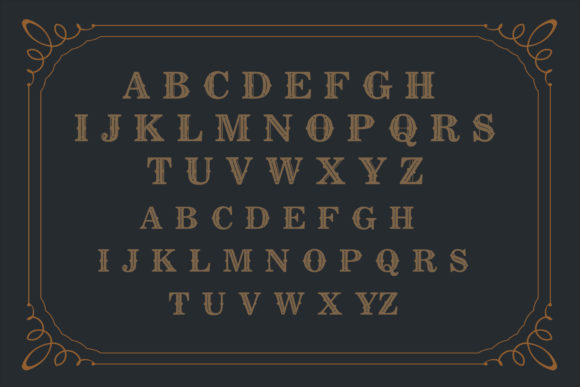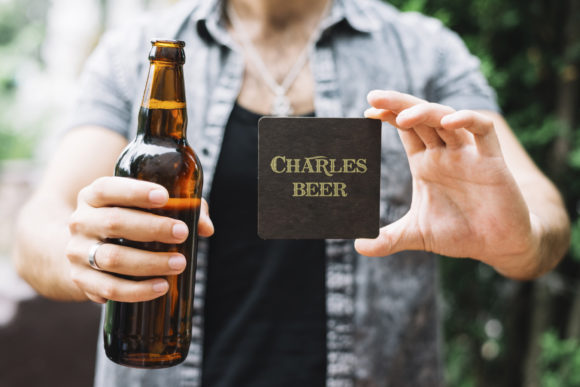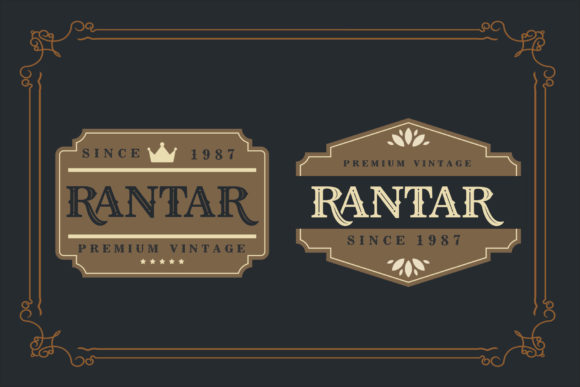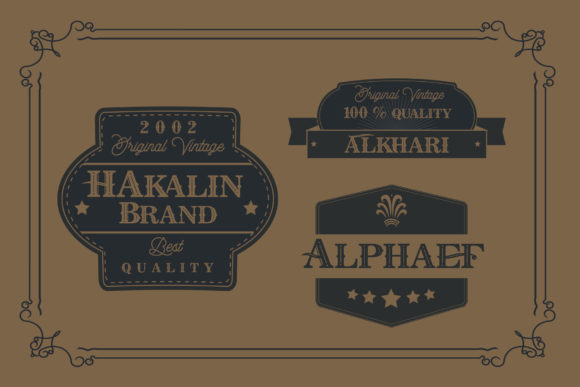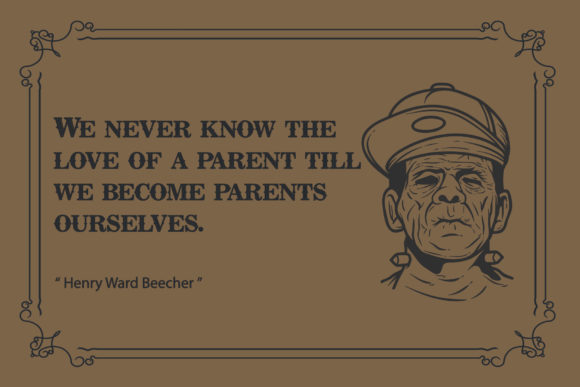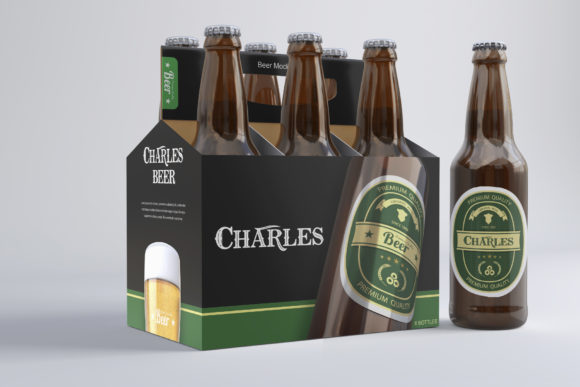
Discover the Timeless Charm of Charles Font: A Sturdy Victorian-Style Serif Font
Are you looking for a font that can instantly transport your designs to the vibrant era of the 1970s? Look no further than Charles Font, a sturdy Victorian-style serif font that exudes an incredibly bold vibe. With its robust and classic design, Charles Font is perfect for any vintage or retro design project that you wish to develop.
The Characteristics of Charles Font
Charles Font is a serif font that boasts a distinctive Victorian-style aesthetic, characterized by its bold lines, sturdy stems, and classic letterforms. The font features a robust and imposing design, with subtle flair and intricate details that evoke the nostalgia of a bygone era. Its bold vibe makes it perfect for headlines, titles, and other display text, while its clear legibility ensures that it remains readable even at smaller sizes.
Transport Your Designs to the 1970s with Charles Font
The 1970s was an era of vibrant culture, characterized by disco music, bell-bottom jeans, and retro-style graphics. With Charles Font, you can instantly transport your designs to this iconic era, evoking the nostalgia and charm of a bygone time. Whether you’re working on a vintage-inspired poster, a retro-style logo, or a distressed-looking brochure, Charles Font is the perfect choice to add a touch of authenticity to your design.
Perfect for Vintage and Retro Design Projects
Charles Font is specifically designed with vintage and retro design projects in mind. Its classic Victorian-style aesthetic makes it perfect for:
- Vintage-inspired posters and flyers
- Retro-style logos and branding
- Distressed-looking brochures and catalogs
- Classic-style packaging and labels
- Heritage brand designs and rebranding projects
Why Choose Charles Font?
So why choose Charles Font for your design projects? Here are just a few reasons:
- Unique and distinctive design: Charles Font boasts a unique and distinctive design that sets it apart from other serif fonts.
- Instantly recognizable: The font’s bold and sturdy design makes it instantly recognizable, even at small sizes.
- Perfect for headlines and titles: Charles Font is perfect for headlines and titles, adding a touch of drama and flair to your design.
- Easy to read: Despite its bold design, Charles Font remains clear and easy to read, even at smaller sizes.
Tips for Using Charles Font Effectively
To get the most out of Charles Font, here are a few tips for using it effectively:
- Use it sparingly: Charles Font is a bold font, so use it sparingly to add emphasis and drama to your design.
- Pair it with a sans-serif font: Pair Charles Font with a sans-serif font to create a striking contrast and add visual interest to your design.
- Experiment with colors: Charles Font looks great in a range of colors, from bold and bright to muted and distressed.
| Font Name | Charles Font |
| Author | The1stWinner |
Charles Font is a sturdy Victorian-style serif font that is perfect for any vintage or retro design project. With its bold and distinctive design, it’s instantly recognizable and adds a touch of drama and flair to any design. Whether you’re a designer, craft, or DIY enthusiast, Charles Font is a great choice for adding a touch of nostalgia and charm to your projects.